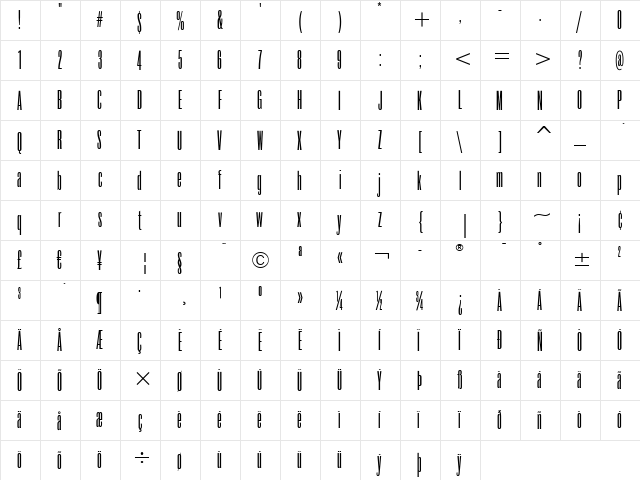
Roswell Two ITC Light Font Preview
Roswell Two ITC Light
Roswell Two ITC Light Font Details
| Foundry | International Typeface Corporation |
Design Context for Roswell Two ITC Typeface
Roswell Two ITC offers clean, dependable letterforms without strong stylistic allegiance, making it a practical choice for designers who need flexibility. Its slender proportions lend an understated elegance to any composition.